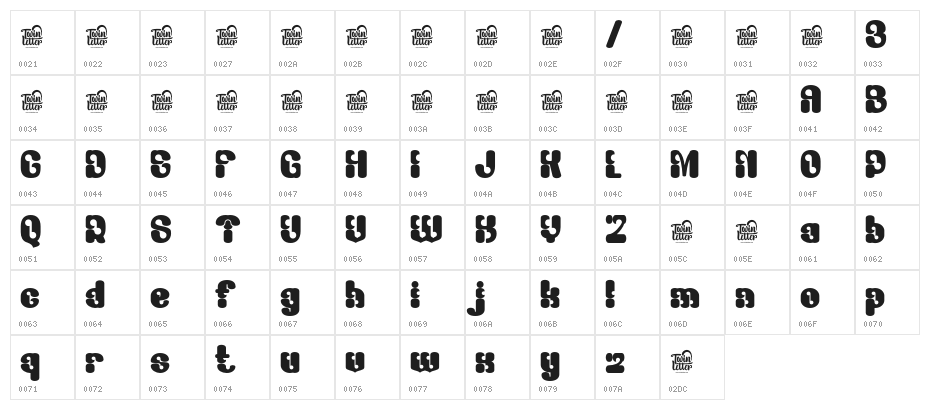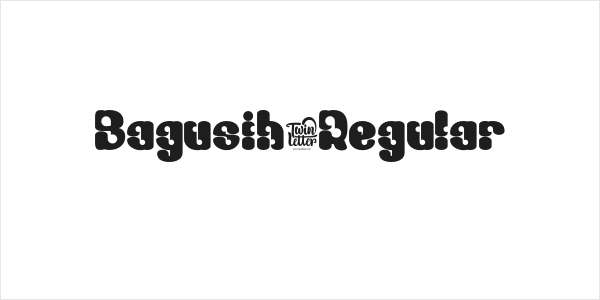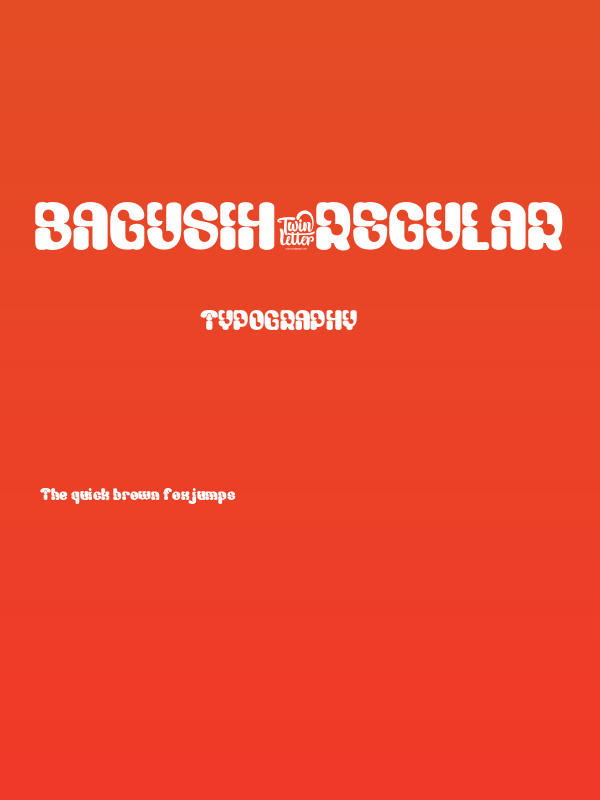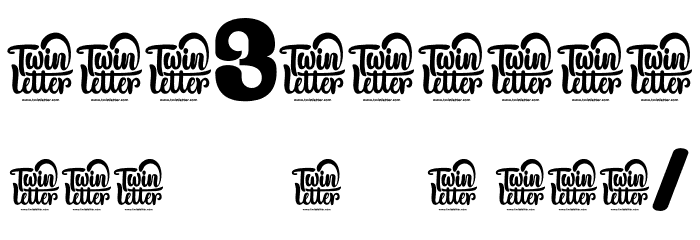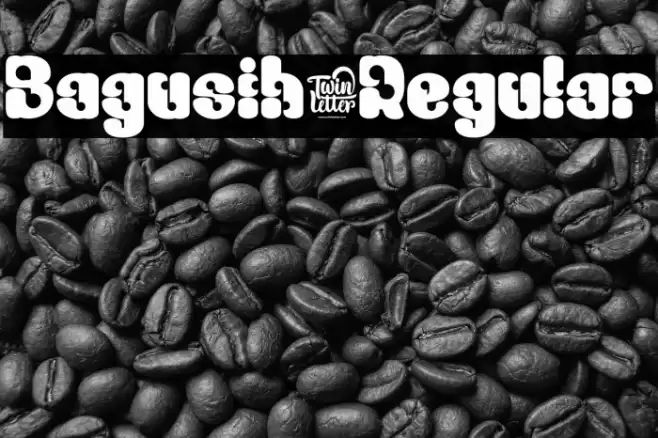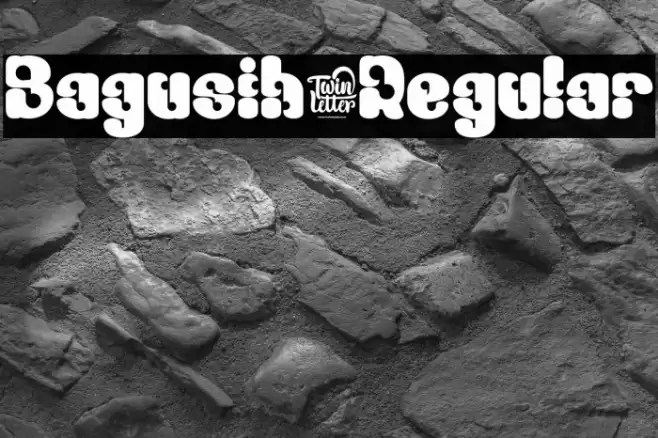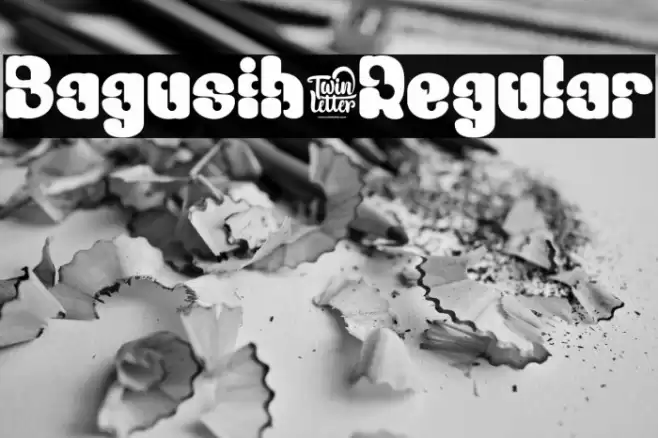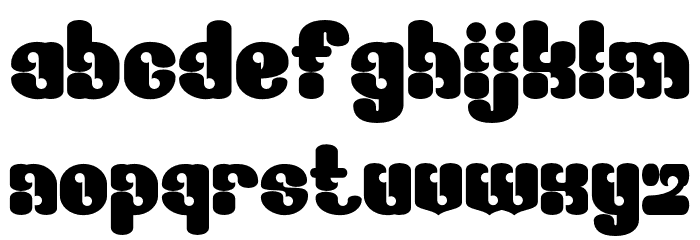
Bagusih-Regular Font
Bagusih-Regular Description
This font features a bold and playful design with rounded edges and a bubbly appearance. The characters are thick and have a uniform stroke width, giving them a strong presence. The uppercase and lowercase letters maintain a consistent style, with the lowercase letters slightly more compact. The numbers and special characters follow the same design principles, ensuring a cohesive look across all elements. This font's unique style makes it stand out, making it suitable for eye-catching designs.
| Overall Style | Playful, Modern |
| Use Case | Logos, Posters, Branding |
| Proposed Projects | Ideal for children's books, playful branding, posters, and creative projects that require a fun and engaging typeface. |